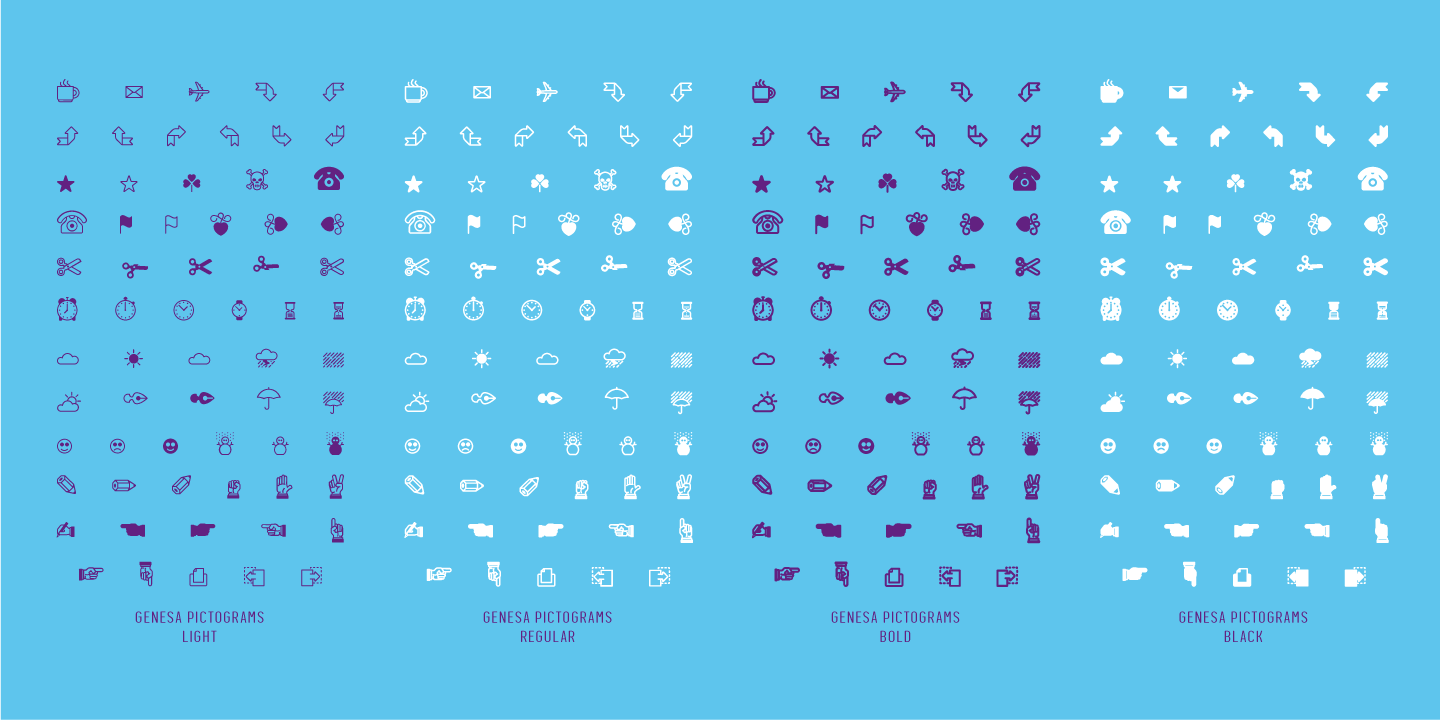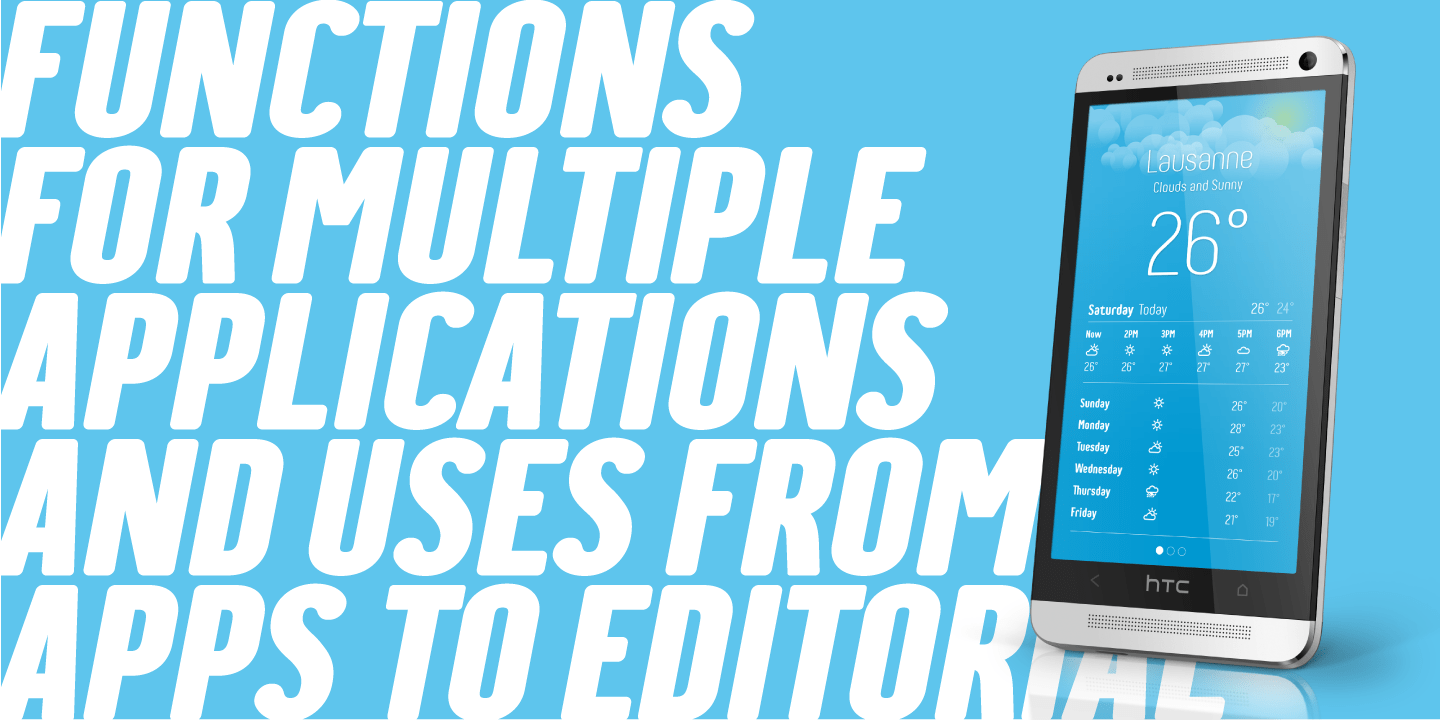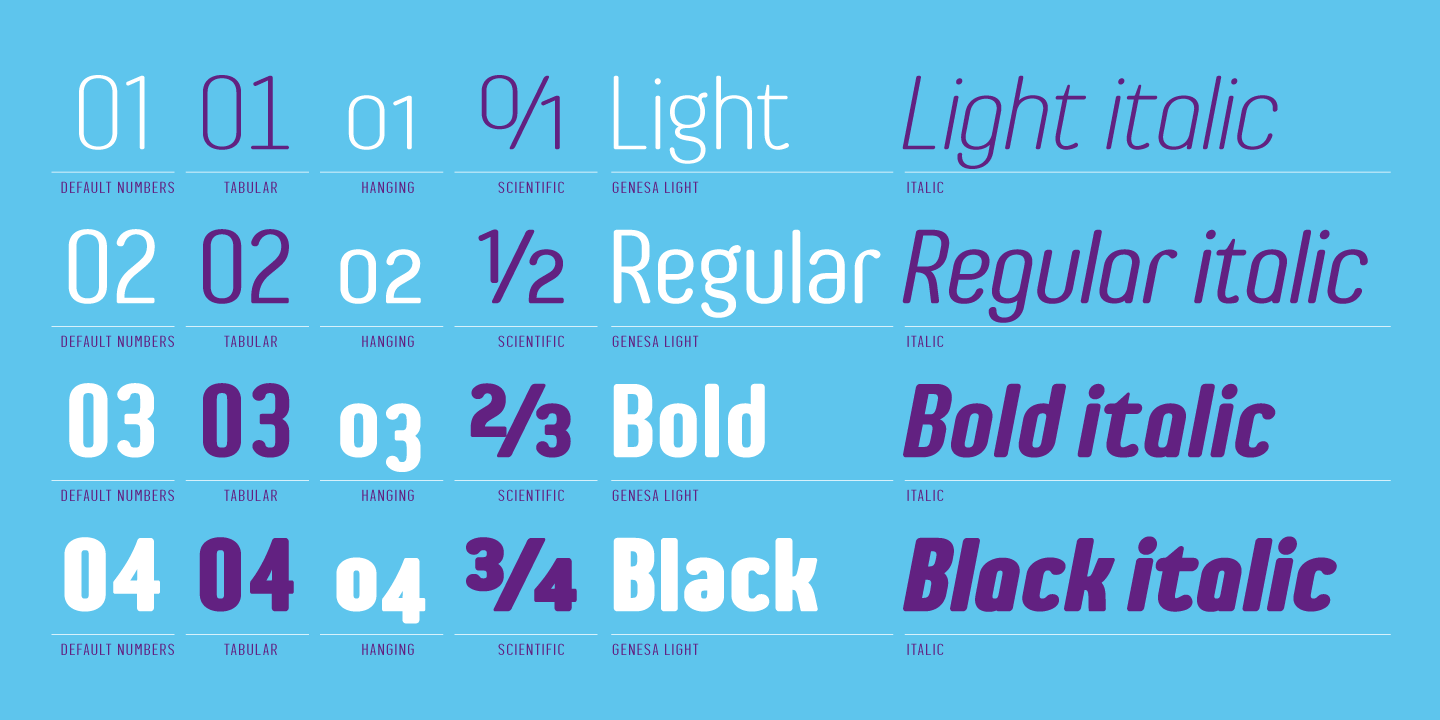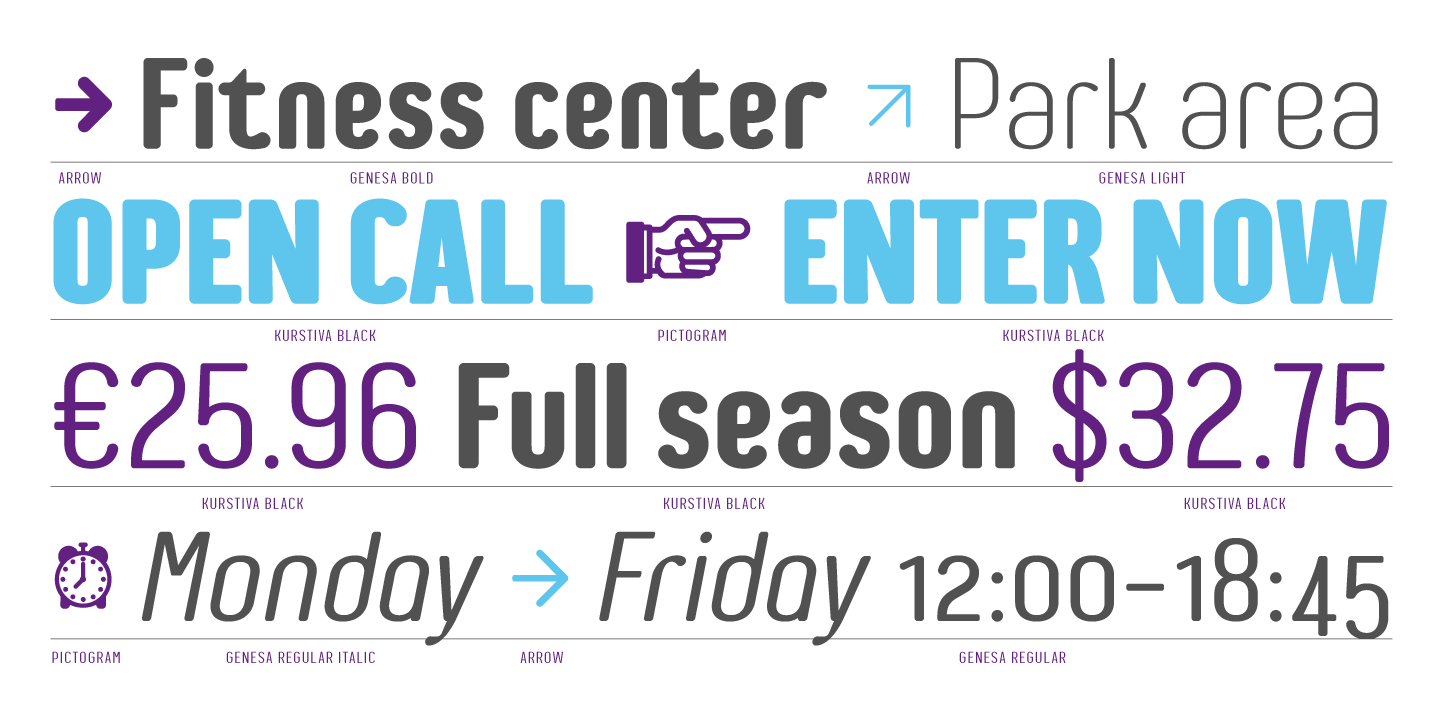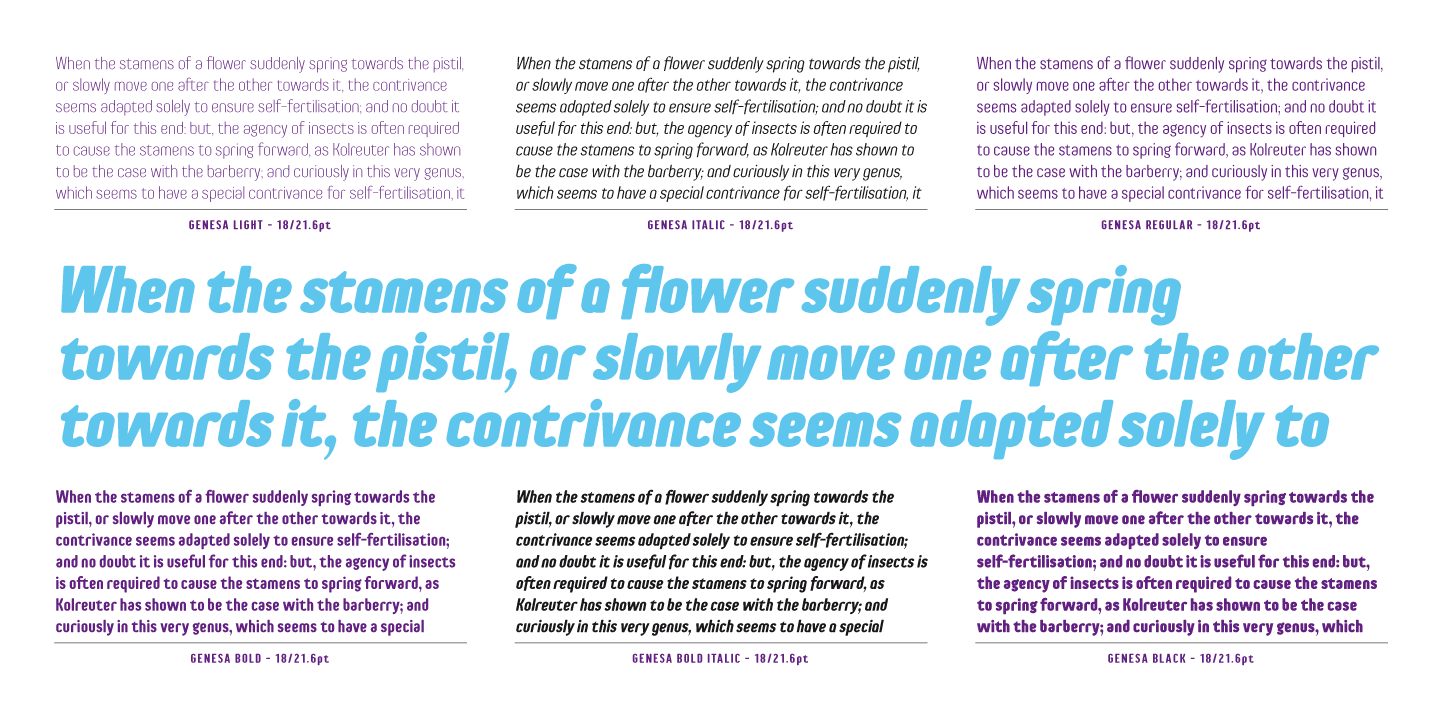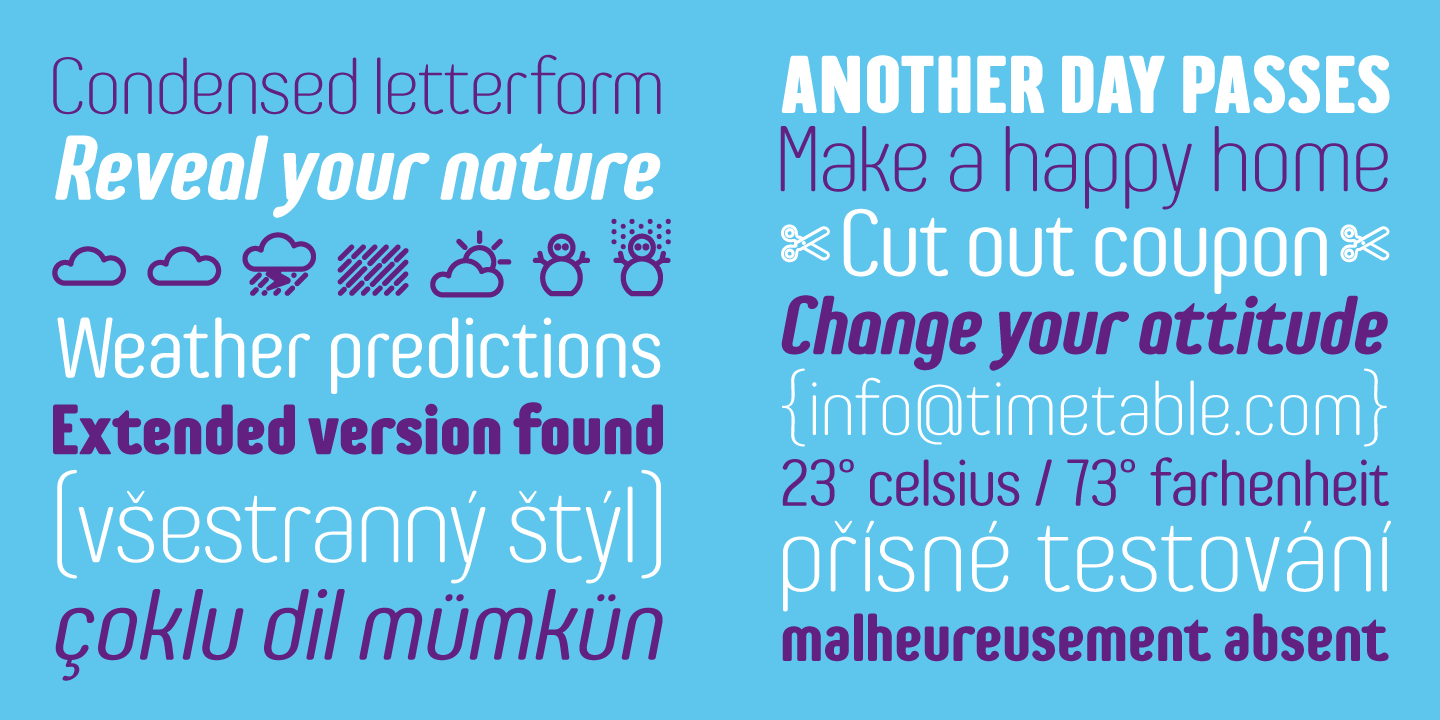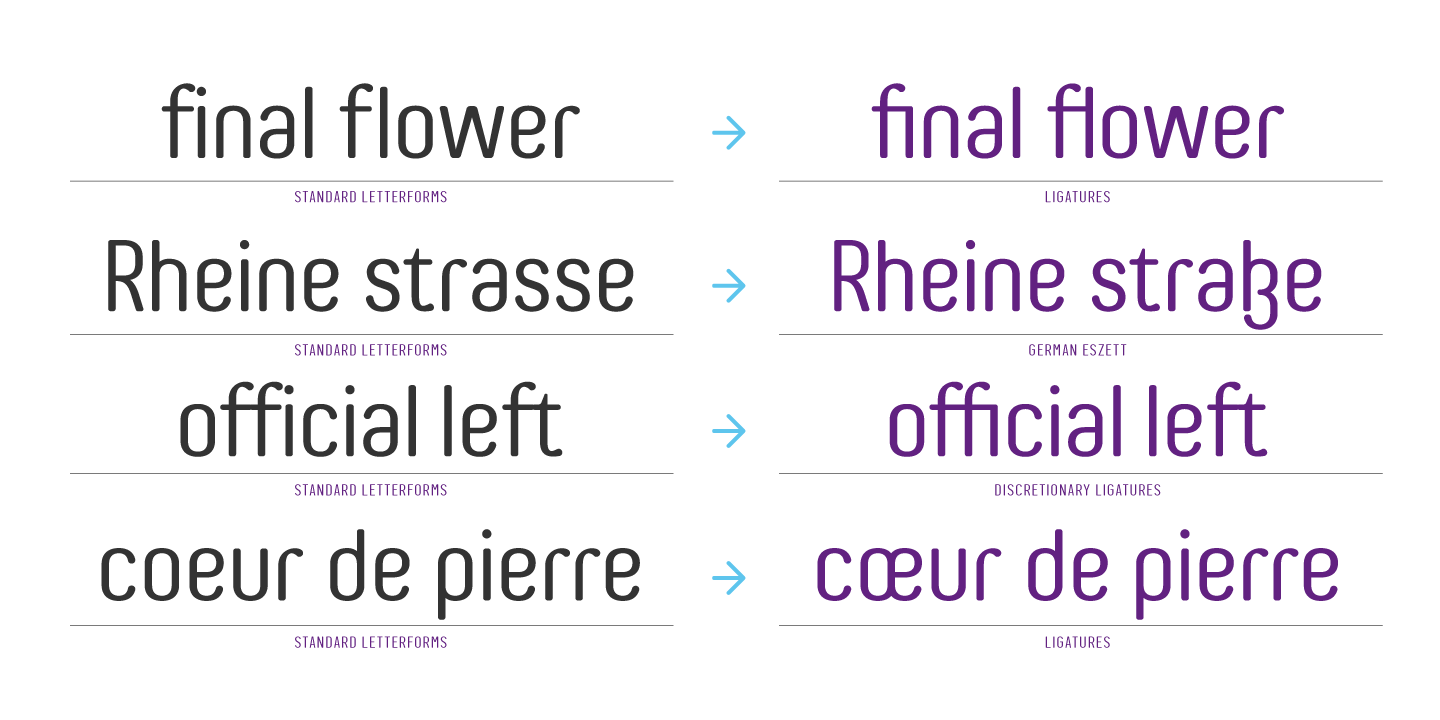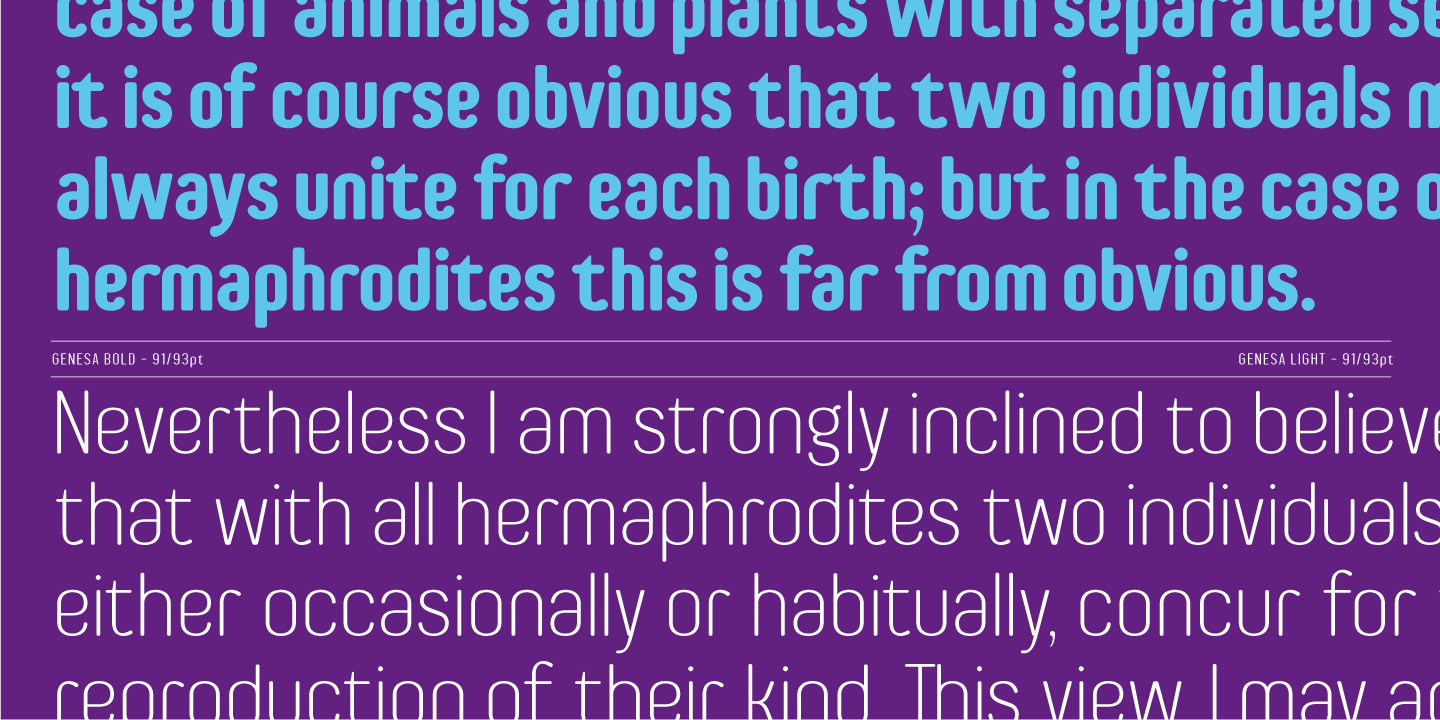
About Genesa
The Genesa typeface is a condensed, rounded sans serif typeface with a contemporary styling ideal for editorial or branding design. With it\’s 4 weights and accompanying italics, this family can be used for large titles or display settings but is equally…